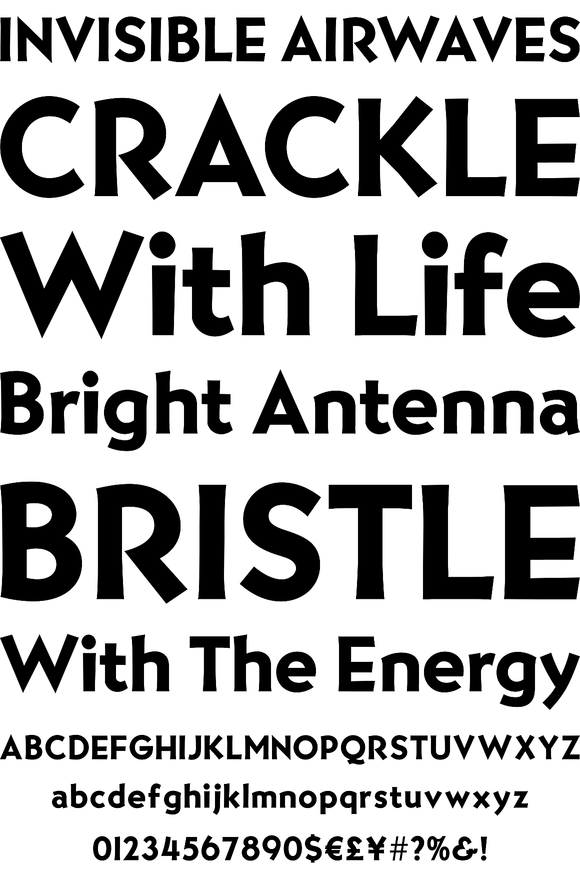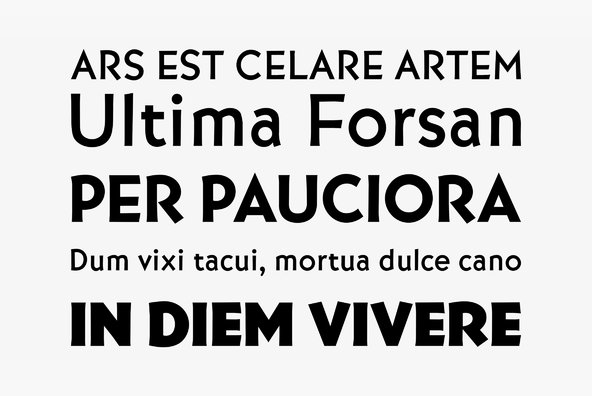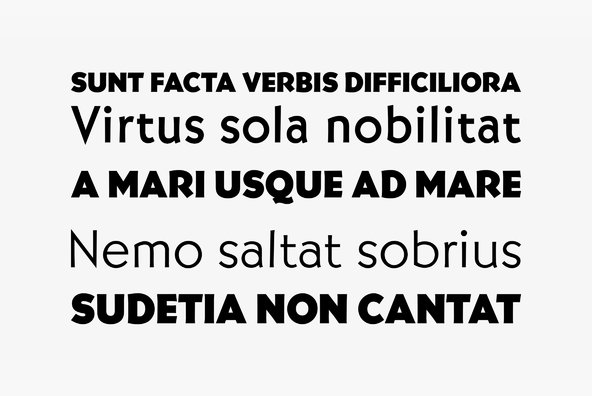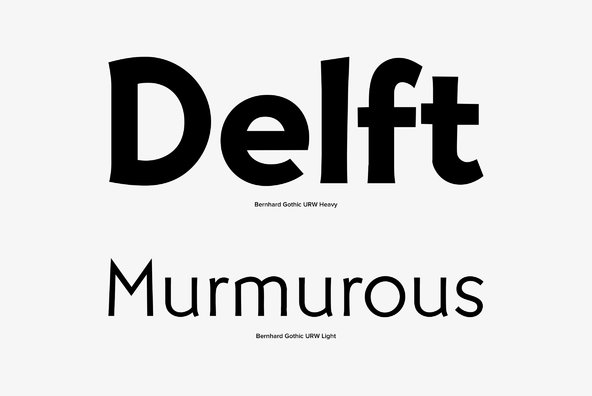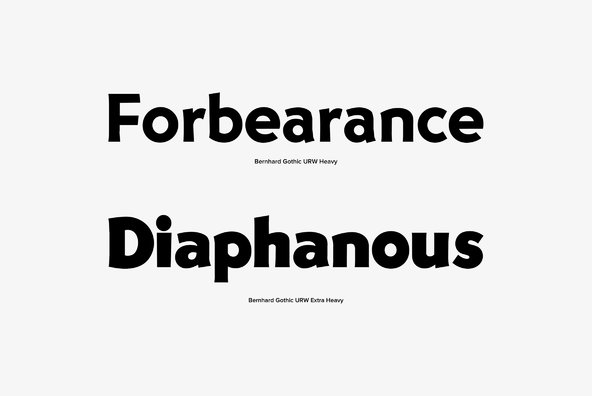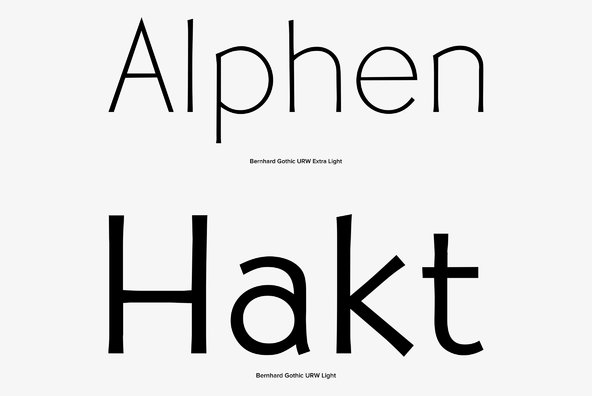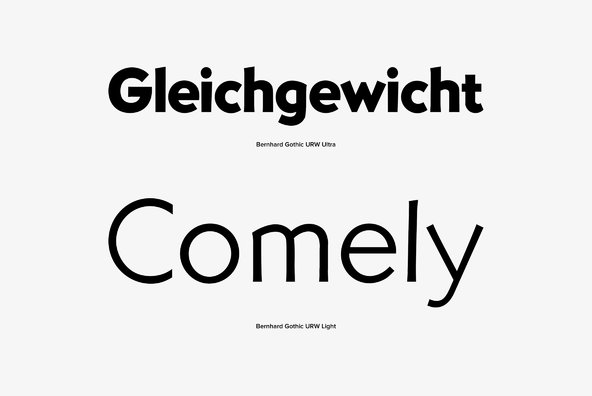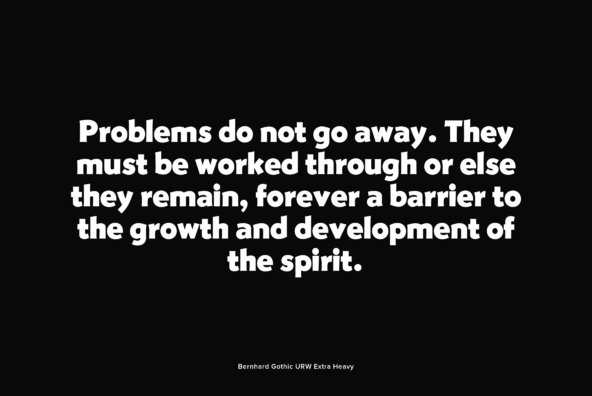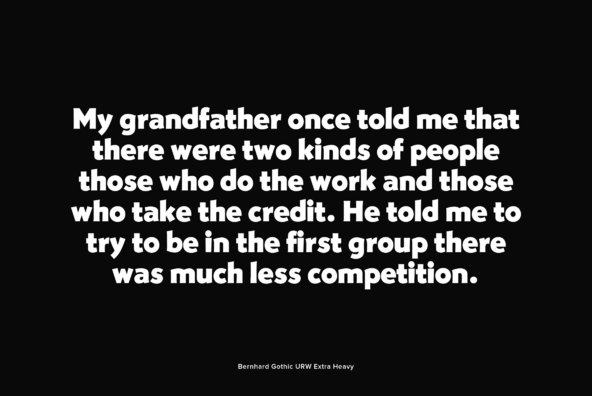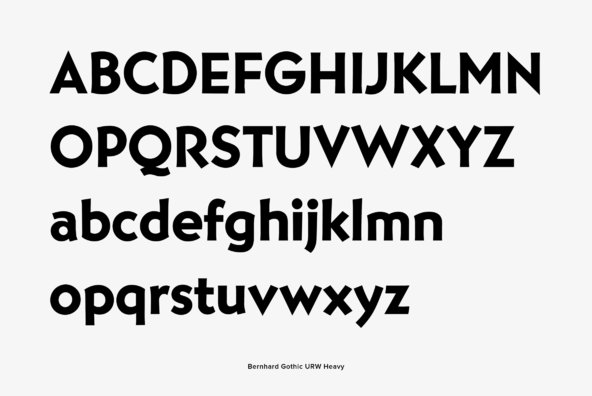
Bernhard Gothic is a family of geometric sans serif typefaces designed by Lucian Bernhard in 1929 for the American Type Founders (ATF). The five style variations by Bernhard were introduced over a period of two years.
Bernhard Gothic is a family of geometric sans serif typefaces designed by Lucian Bernhard in 1929 for the American Type Founders (ATF). The five style variations by Bernhard were introduced over a period of two years. Bernhard Gothic is more organic and less regular than other geometric sans-serif typefaces, including Futura, Kabel, and Twentieth Century, showing influence of Bernhard's earlier more expressionistic faces.